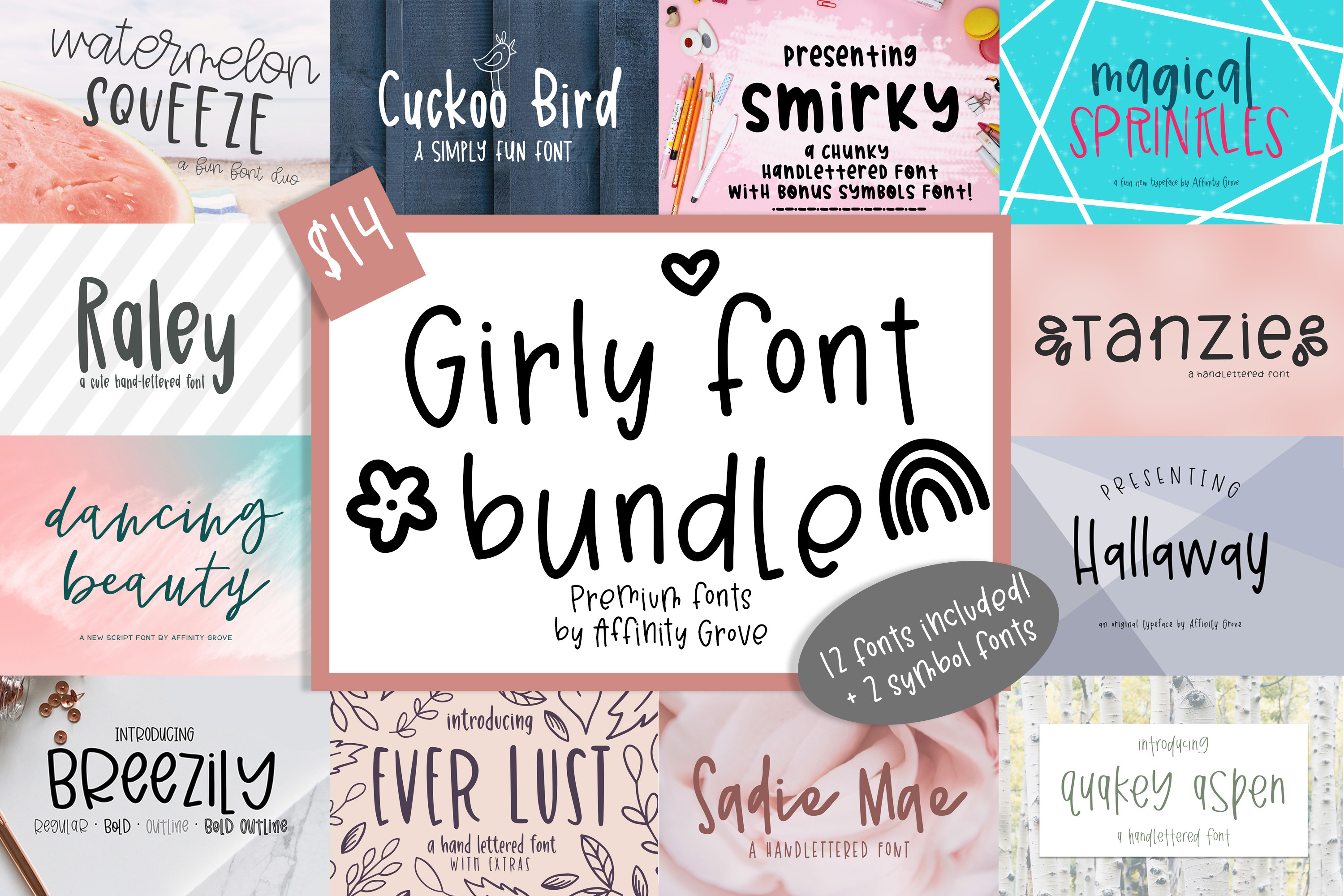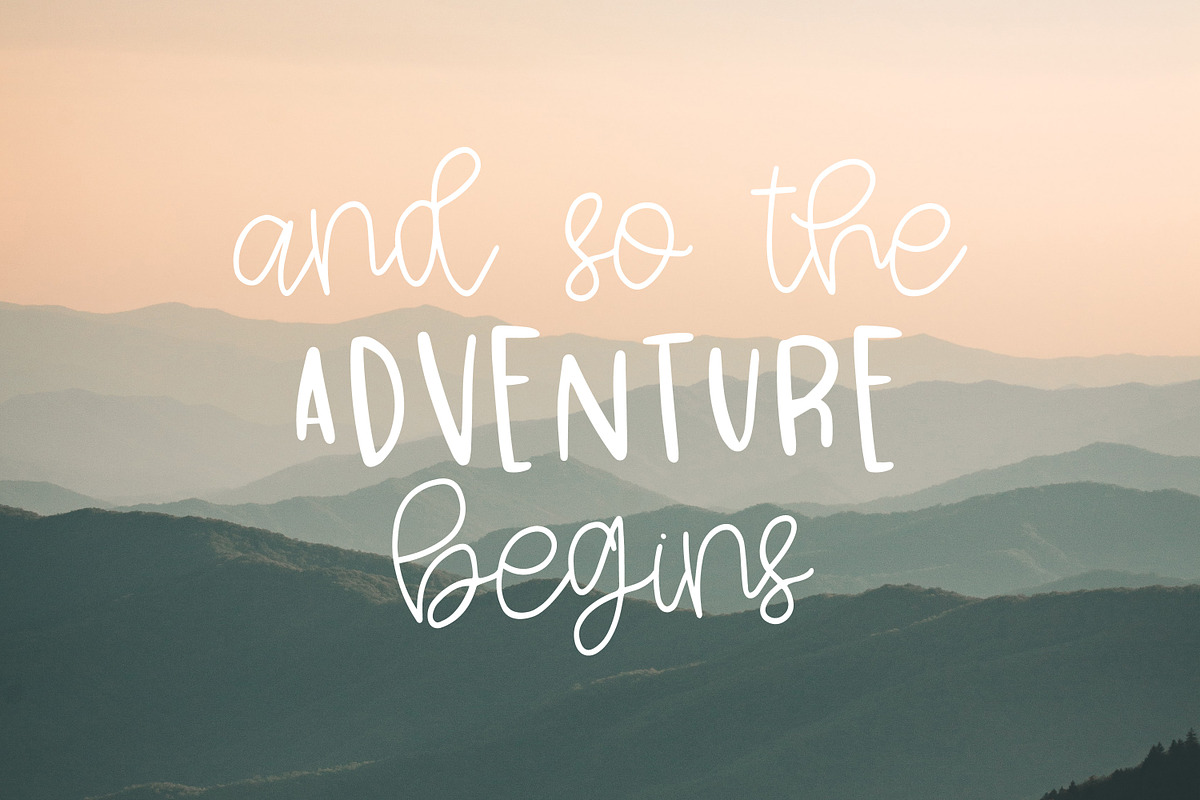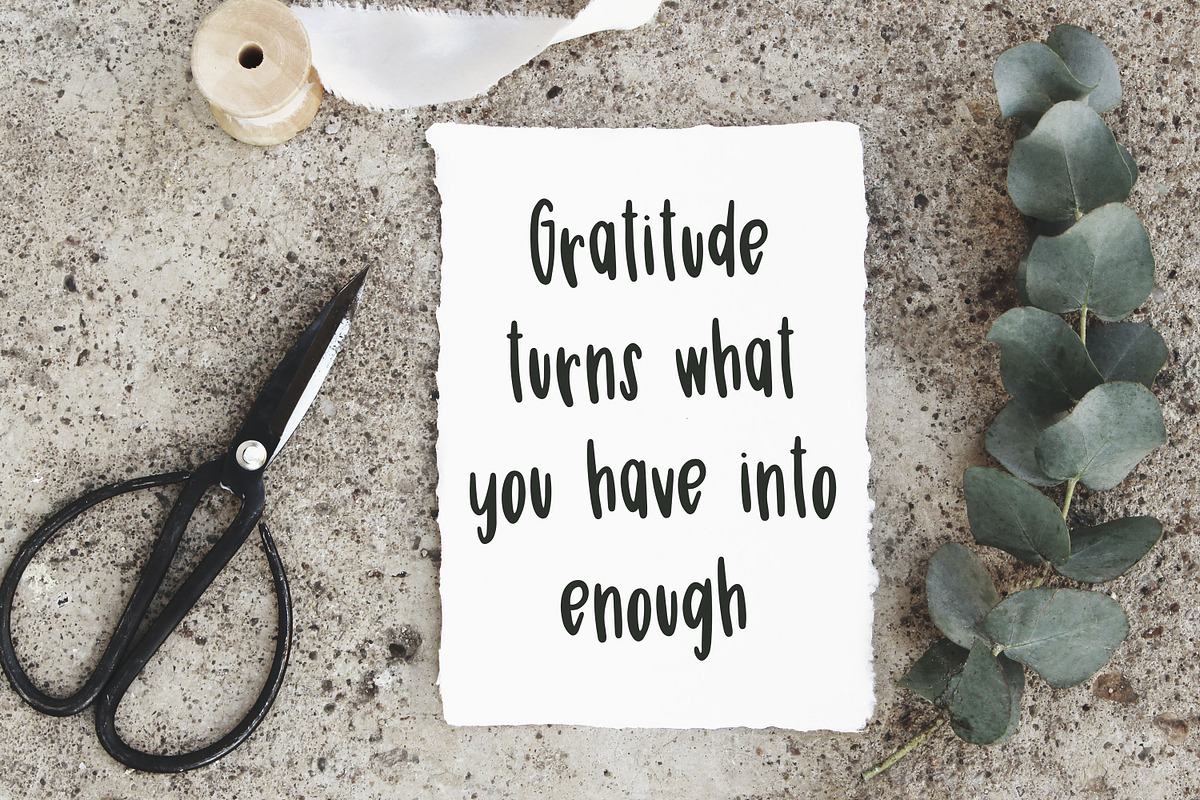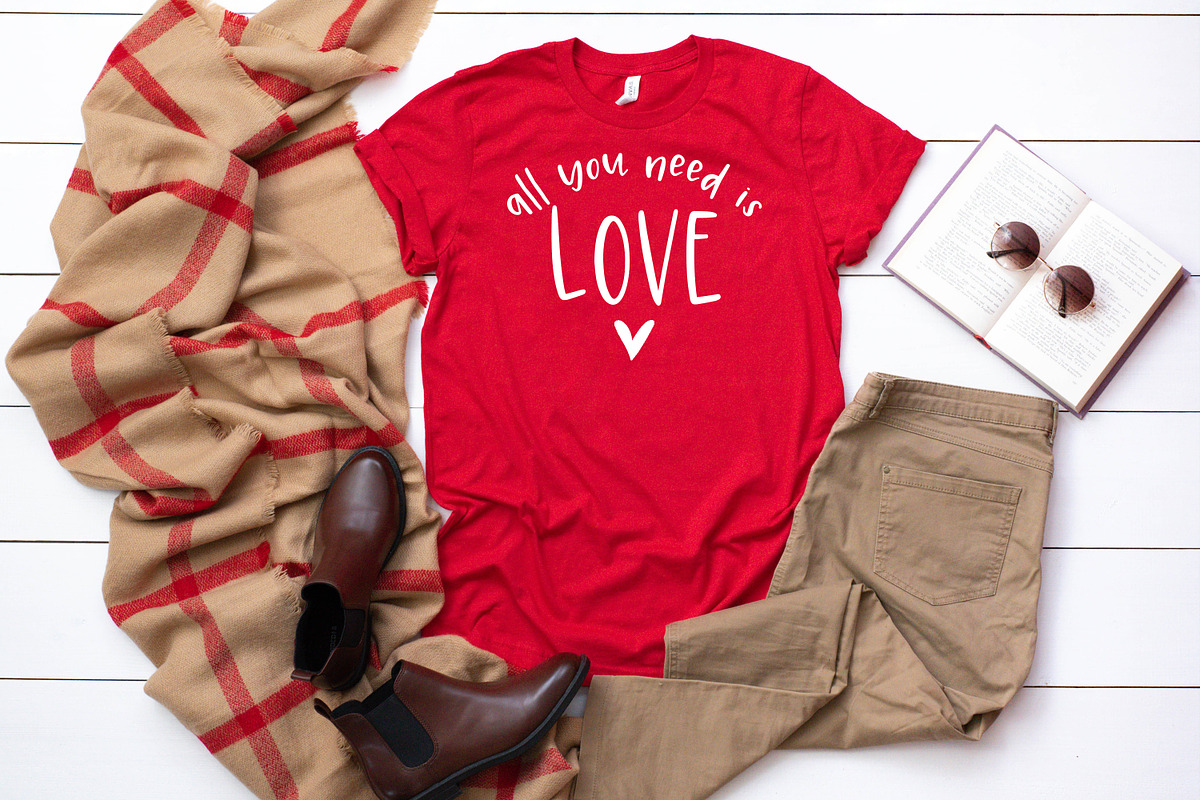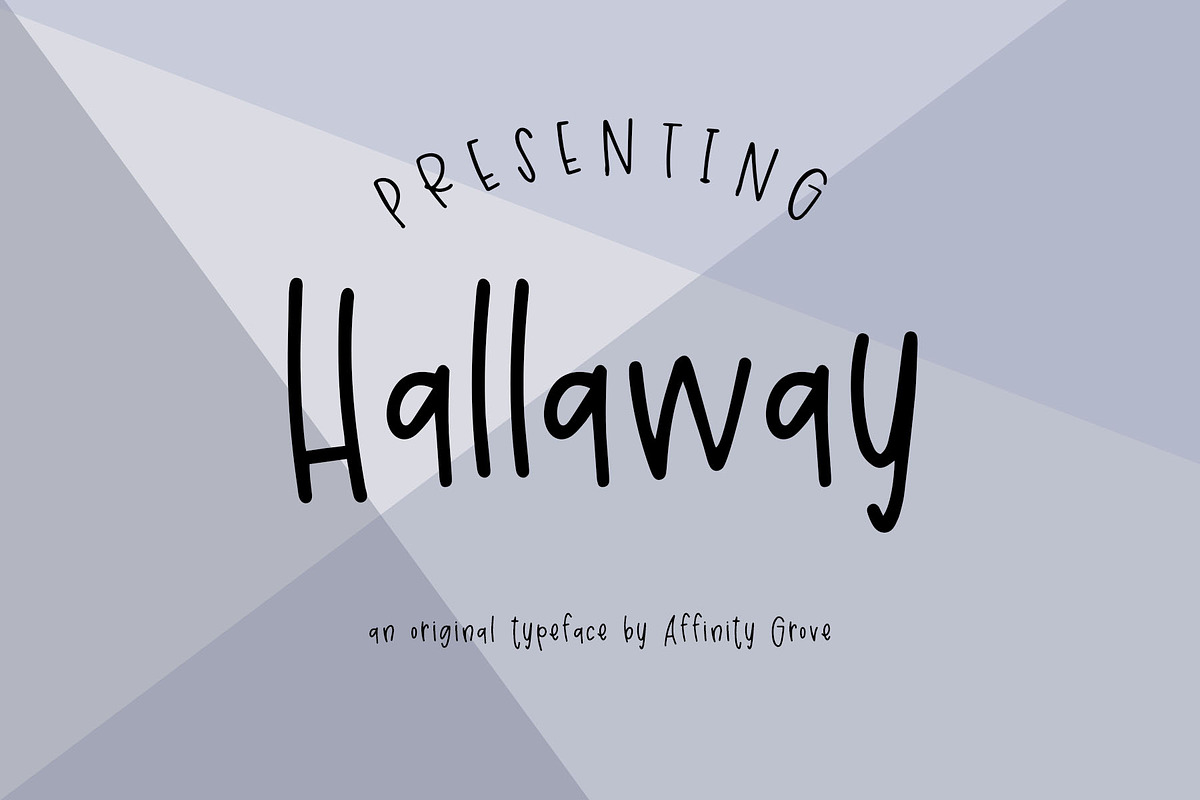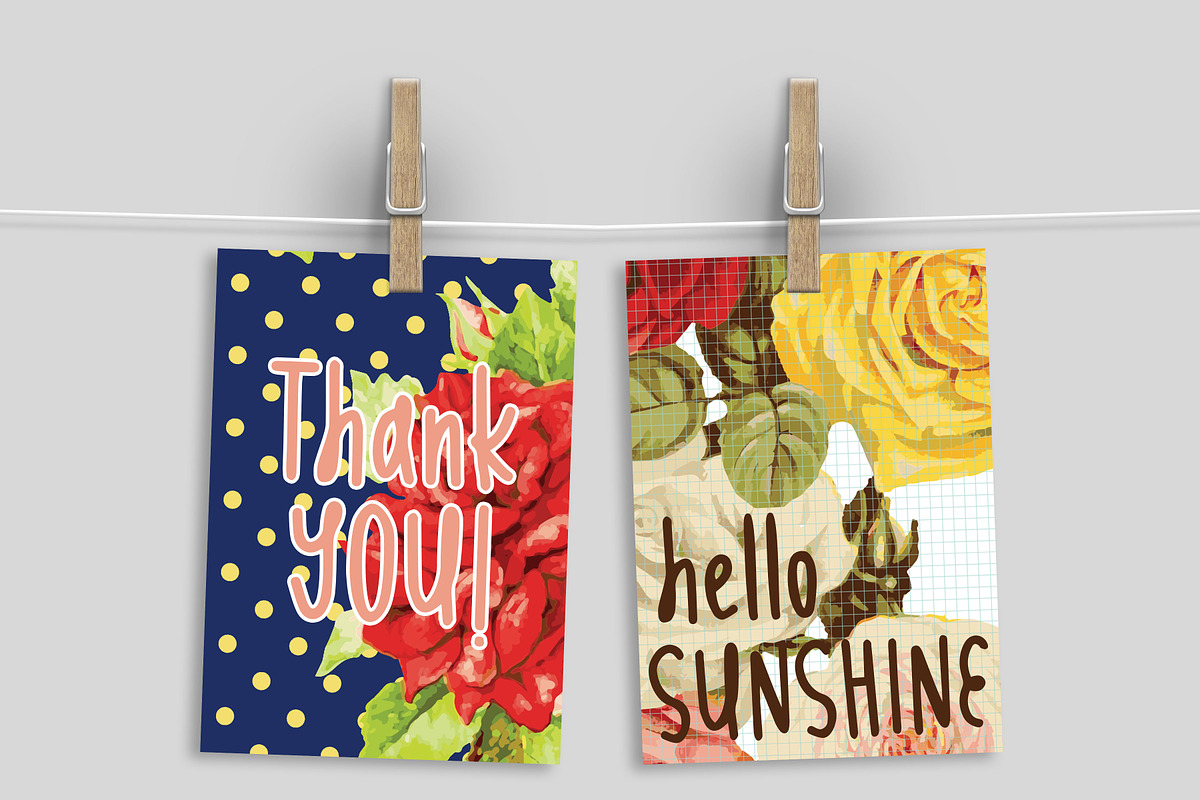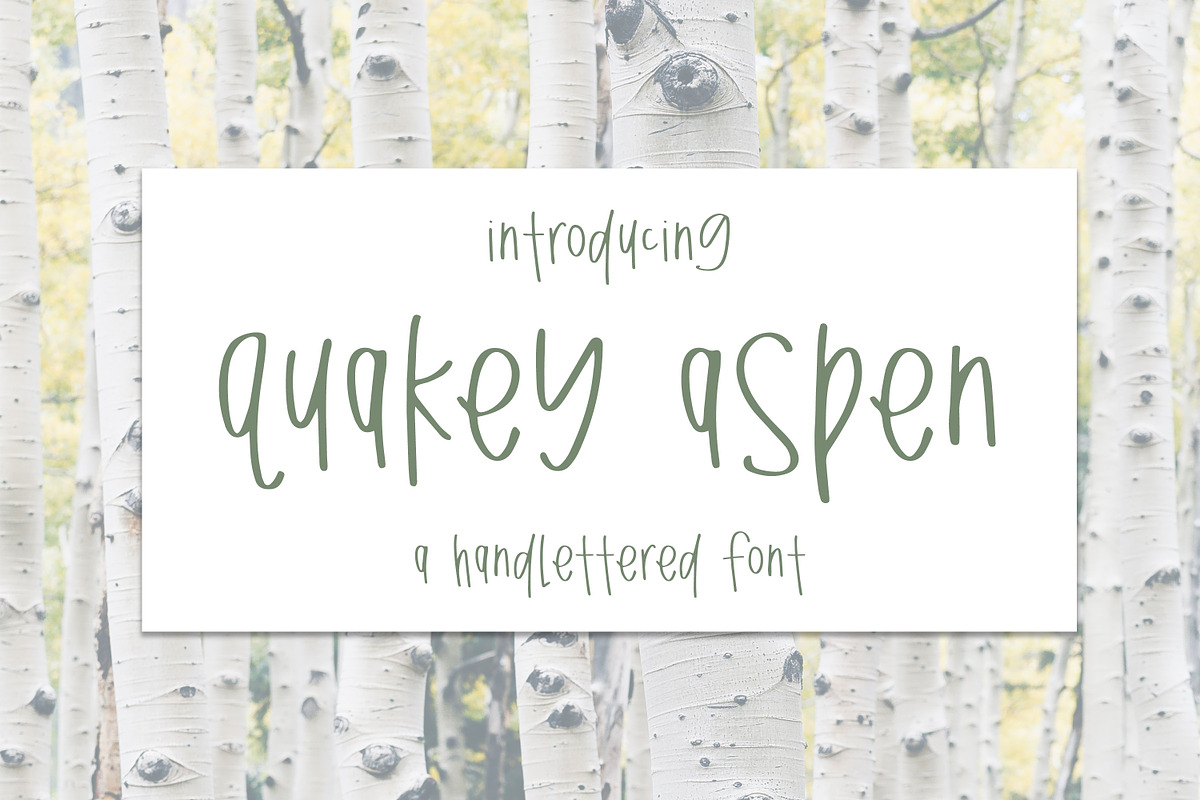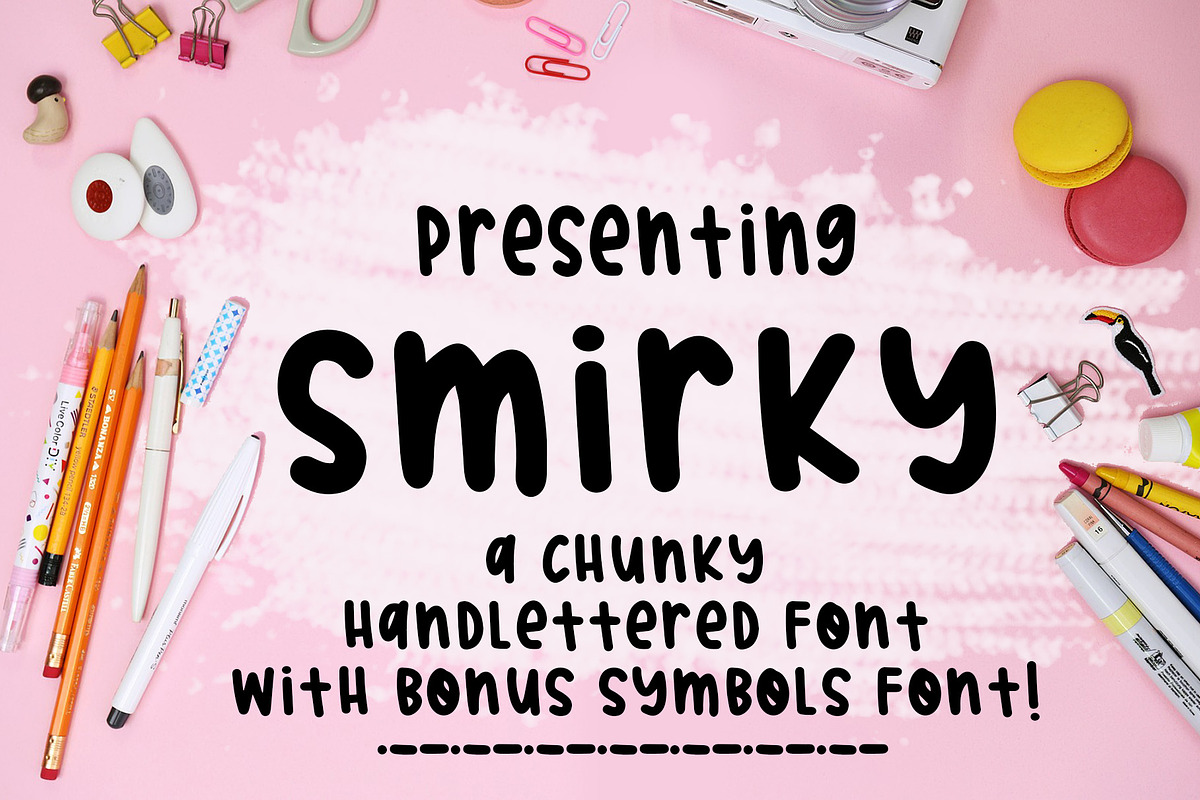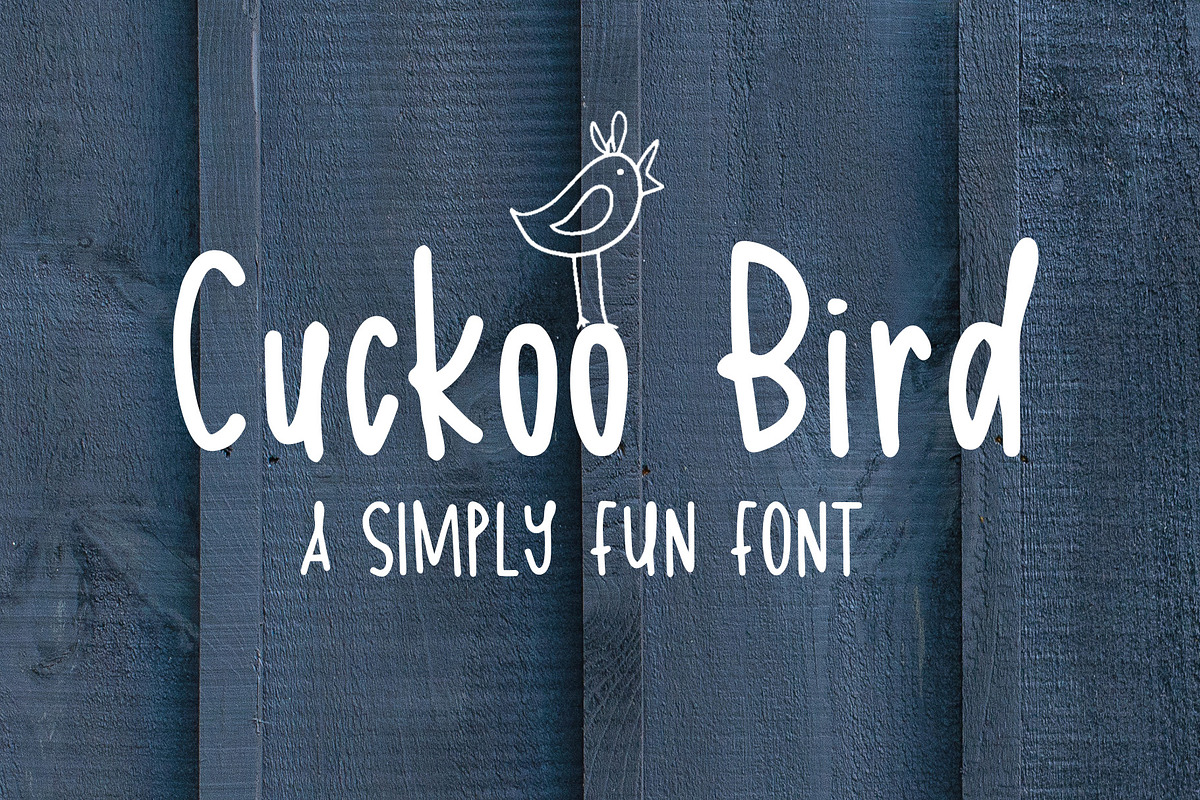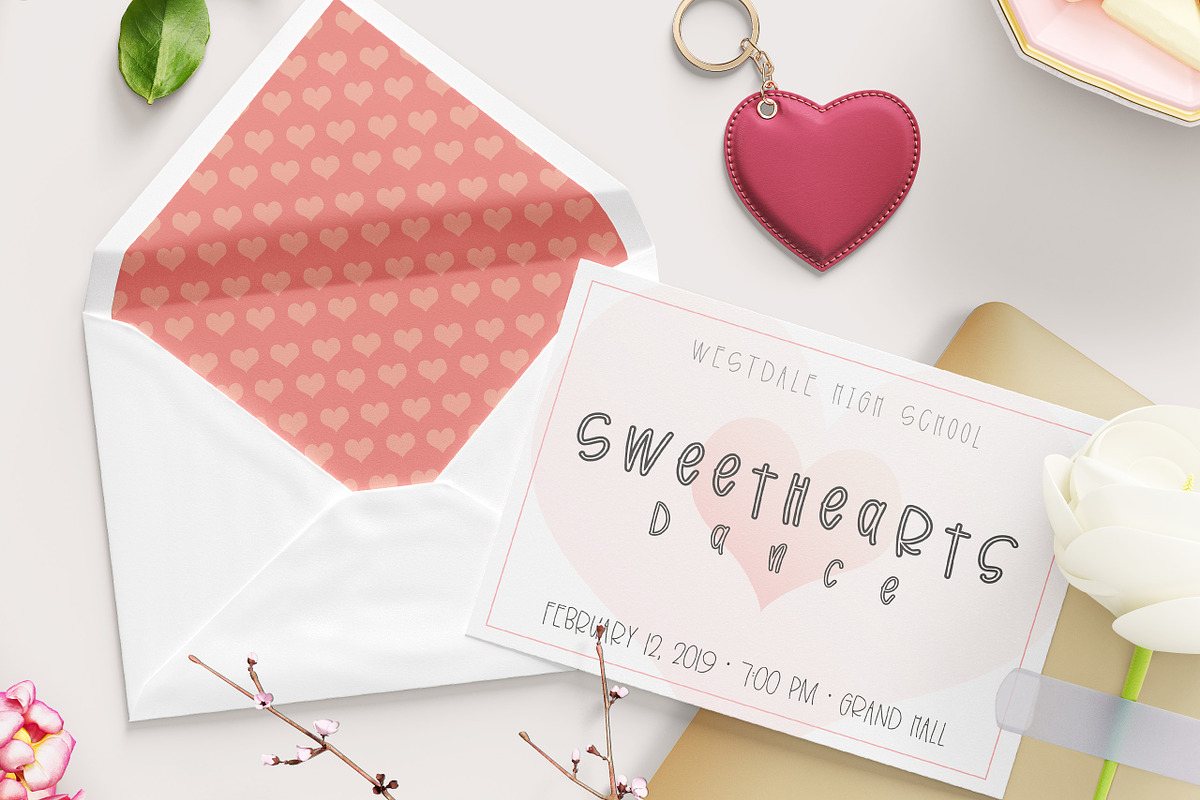
Girly Font Bundle
Girly font bundle includes 12 girly handwritten fonts + 2 symbol fonts! Use to create girly invitations, announcements, cards and more! Adorable fonts to create bedroom decor for girls, darling printables and quotes for girls! Super cute for girls scrapbook fonts!